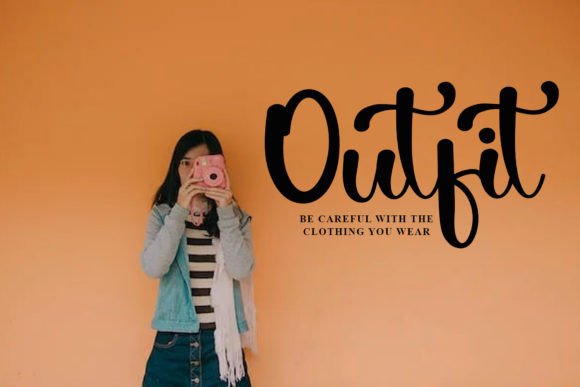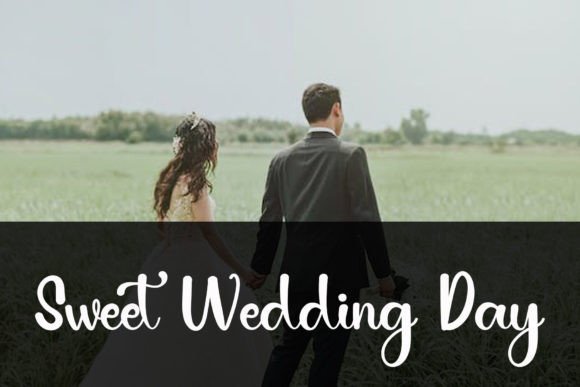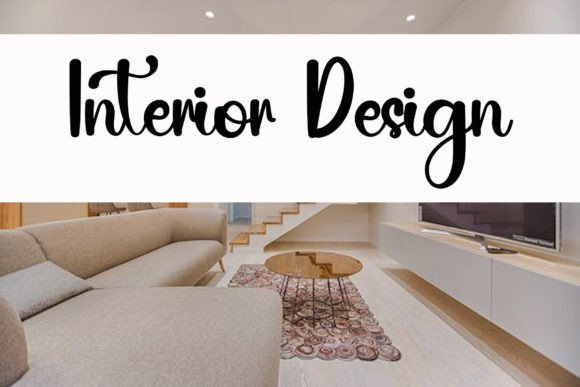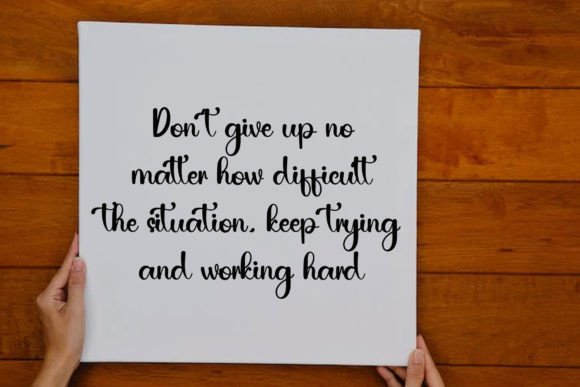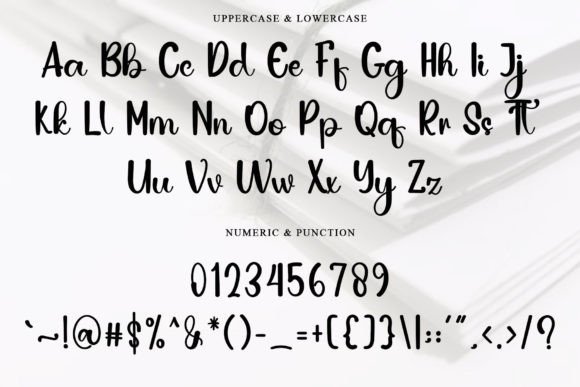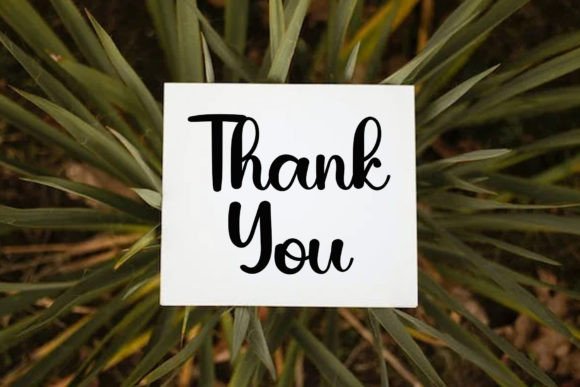
Introduction to Smile Family Font
Smile Family is a very beautiful font, a font designed for your business needs.
Suitable for various designs such as banners, YouTube thumbnails, signatures, invitation cards, t-shirts, clothing and various other handicrafts Has a unique style and character that is suitable for your designs.
Key Features of Smile Family Font
Why Choose Smile Family Font?
Smile Family Font offers exceptional quality and versatility, making it a valuable addition to your design toolkit. Whether you’re creating for personal projects or commercial use, Smile Family Font delivers professional results.